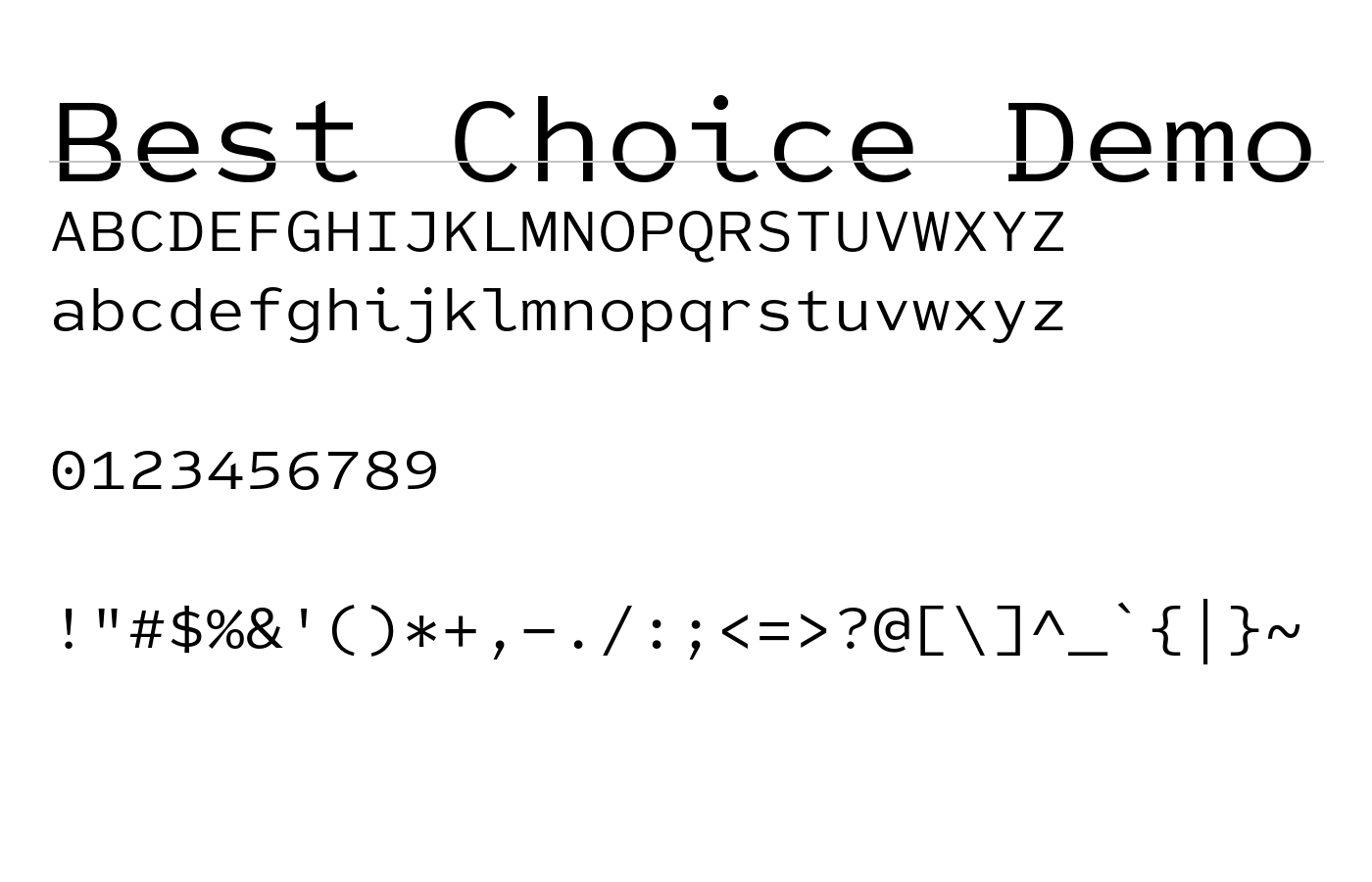
Best Choice Demo Font is a clean and modern monospaced sans serif typeface with a tech-inspired, minimalist feel. Its consistent stroke weight, generous x-height, and straightforward letterforms make it highly legible, ideal for coding environments, user interfaces, and technical documentation. This font works well for projects that need clarity and precision, while maintaining a subtle personality that balances professionalism with approachability.
Best Choice Demo Font
About Best Choice Demo Font
| Font family | Best Choice Demo Font |
| Designer | Ryoichi Tsunekawa |